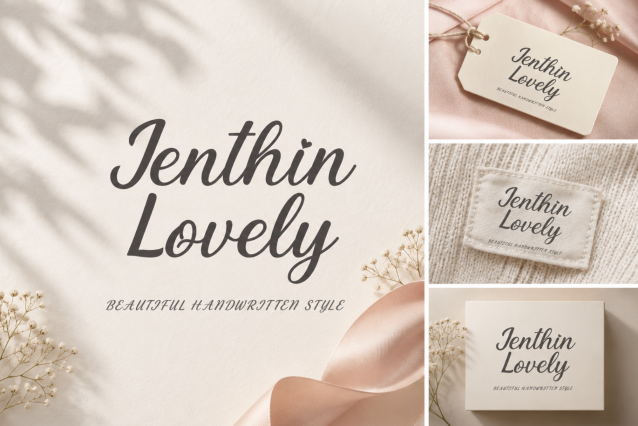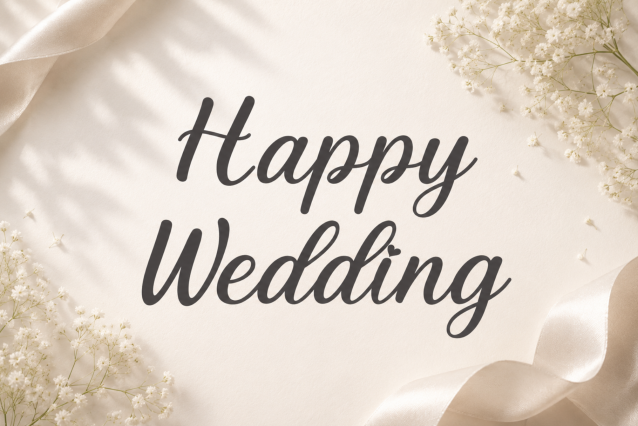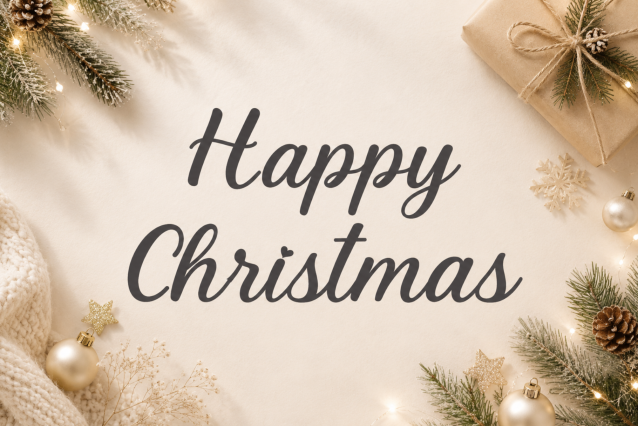
Jenthin Lovely is a modern handwritten script font with a soft, elegant, and romantic touch. Featuring smooth curves and natural strokes, it is perfect for branding, logos, wedding invitations, packaging, social media, quotes, and feminine design projects. Bring warmth and charm to every creation with its stylish handwritten look.